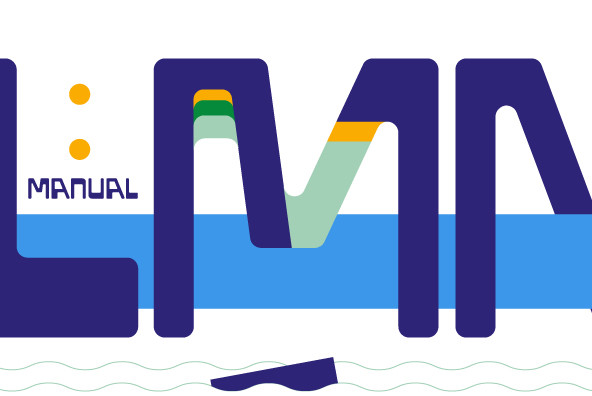
Beep Beep Blip. Amoeba is our future. Computers self replicate... nanobots building duplicates of themselves, infiltrating our lives undetected, and ultimately enslaving the human race for being inferior sacks of flesh driven by frivolous ideals and emotion. Amoeba is a constrained but quirky future font, designed on a computer by a human (supposedly).